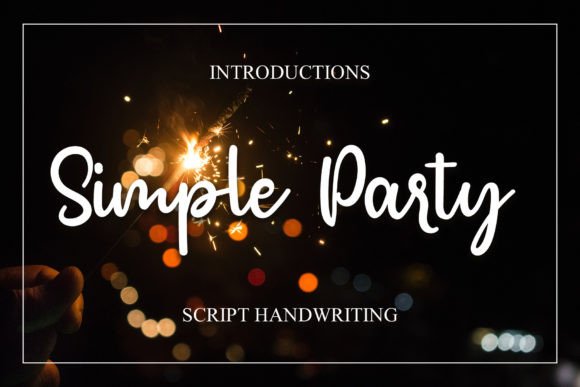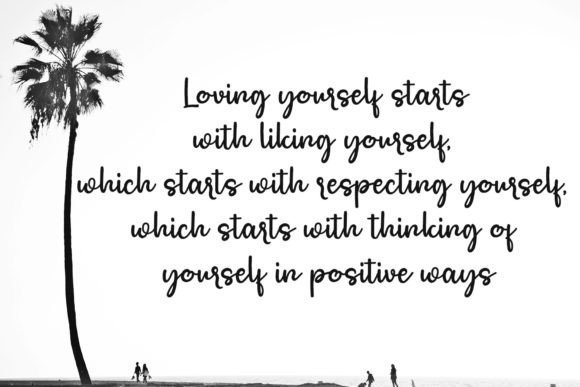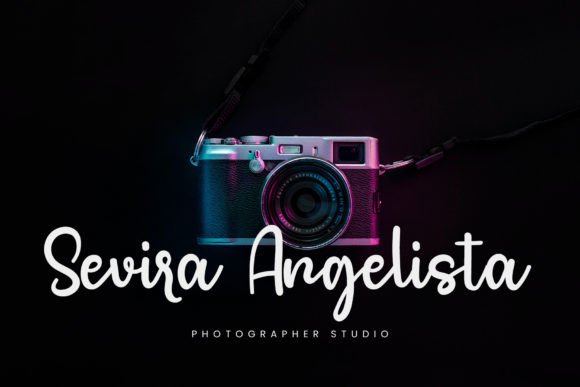
Simple Party Font Download – Elegant Classic Script Typeface
The Simple Party Font download is an elegant script typeface inspired by timeless calligraphy. With its balanced strokes and refined design, this font adds sophistication and beauty to every project. Whether for invitations, branding, or posters, Simple Party is a versatile font that blends tradition with contemporary charm.
A Contemporary Script with Classic Inspiration
The Simple Party Font download combines the grace of classic calligraphy with a modern twist. Its smooth curves and well-proportioned letters create a polished look that feels fresh while honoring traditional handwritten elegance.
Wedding invitations, event stationery, and greeting cards shine with the Simple Party Font download. Its elegant script adds romance and refinement, ensuring that your designs leave a memorable impression.
Great for Logos and Branding
Typography defines the tone of your brand, and the Simple Party Font download is excellent for logos, product packaging, and promotional materials. Its balance of beauty and readability makes it suitable for fashion, lifestyle, and boutique brands.
Versatile Across Digital and Print Projects
From posters and banners to social media graphics and digital artwork, the Simple PartyFont download adapts seamlessly across mediums. Its calligraphic flow ensures designs look professional, stylish, and engaging in every format.
Readability with Stylish Elegance
Unlike fonts that prioritize decoration over clarity, the Simple PartyFont download maintains readability while still offering elegant style. Its neat structure allows it to be used in both bold headlines and smaller text.
Why Choose Simple Party Font?
Among script fonts, the Simple PartyFont download stands out with its blend of classic calligraphy and modern elegance. It is versatile enough for both personal projects and professional branding.
Add Timeless Elegance to Your Designs
Typography shapes the mood of your work, and the Simple PartyFont download helps you add beauty, refinement, and sophistication. Whether for invitations, logos, or posters, this font ensures your designs capture attention and admiration.